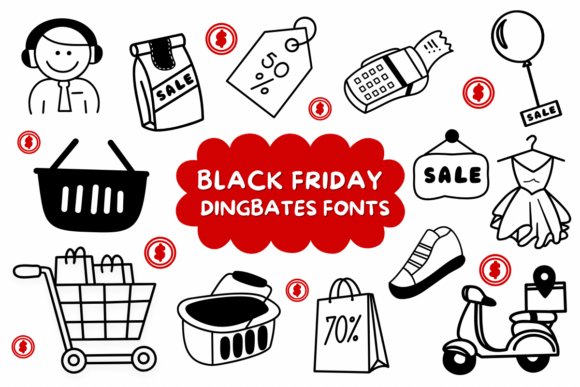
The Ultimate Guide to Black Friday Font: Elevate Your Designs with Style
I’ll never forget the time I was working on a Black Friday campaign for a client, and I was struggling to find the perfect font to match the excitement and energy of the shopping event. I wanted something that would make my designs pop, but everything I found seemed either too bland or too over-the-top. That’s when I stumbled upon the Black Friday dingbat font, and it changed the game. ✨
What is Black Friday Font?
For those who may not know, Black Friday is a major shopping day with special discounts and sales, usually held the day after Thanksgiving. A Black Friday dingbat font is a type of font that features small images, such as shopping bags, sale tags, dollar signs, gift boxes, and excited shoppers, which can be used as symbols or decorations for Black Friday-themed designs.
- 🎉 The Black Friday font is packed with a wide range of fun and relevant dingbats that can add a playful touch to any design.
- 💻 The font is highly versatile and can be used for a variety of design projects, from social media graphics to flyers and brochures.
While the Black Friday font is amazing, there are a few things to keep in mind. 🤔 For example, some of the dingbats may not work well at small font sizes, and you may need to experiment with different sizes and combinations to get the desired effect. ⚠️ Additionally, the font may not be suitable for body text or long-form content, as it’s primarily designed for use as a decorative element.
The Black Friday font was designed by a team of creatives who wanted to capture the excitement and energy of the shopping event. The font is inspired by the sights and sounds of Black Friday, from the crowded stores to the frantic shoppers. The designers aimed to create a font that would be fun, playful, and easy to use, while also conveying the sense of urgency and excitement that comes with the shopping event.
| Font Name | Black Friday Font |
| Author | Natchuta |
Q: What is the Black Friday font?
A: The Black Friday font is a dingbat font featuring small images, such as shopping bags, sale tags, dollar signs, gift boxes, and excited shoppers, which can be used as symbols or decorations for Black Friday-themed designs.